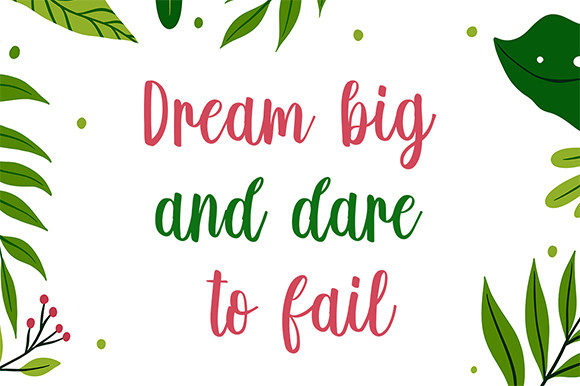
Just Because Font
db-ku.com - Script & Handwritten -- Just Because is a sweet script font with a gorgeous feel. Its distinct and well rounded letters make this font a masterpiece. It is suitable for any branding project like logos, t-shirt printing, sport designs, and more. It will look outstanding in a wide range of contexts.